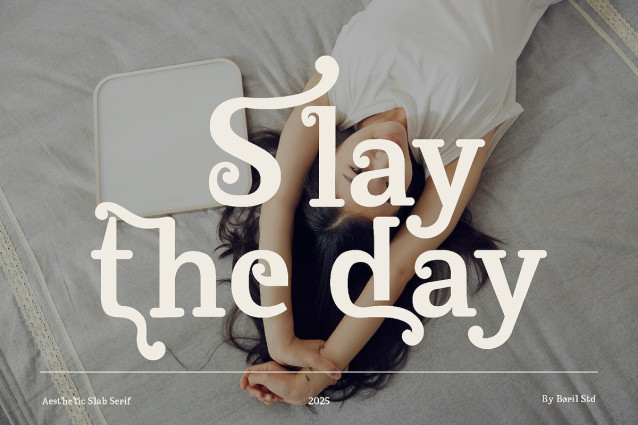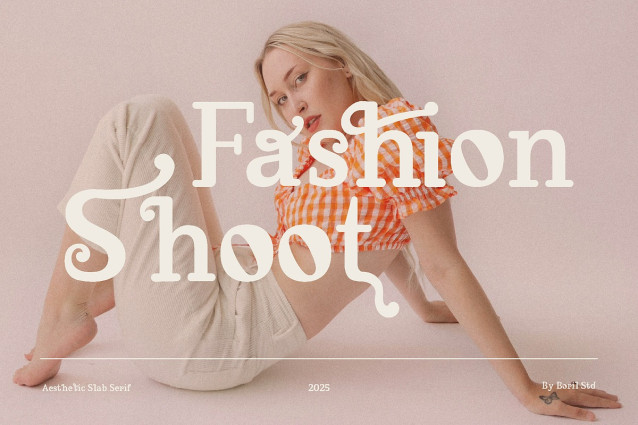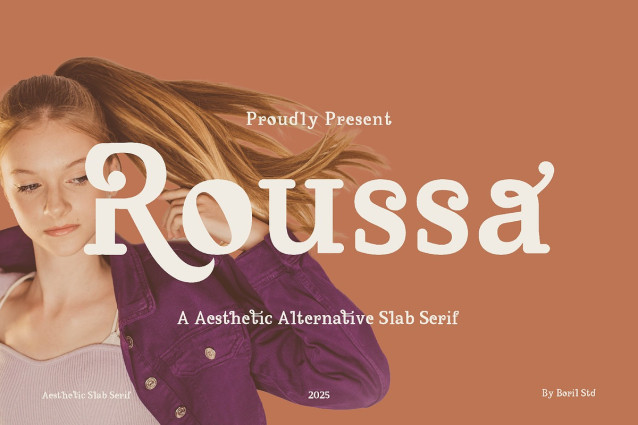
Roussa Font
Roussa Font: Classic style but with unique features like curved shapes and Latin accents, creating an impressive look. It will be the perfect choice for designing posters, advertising posters, logos, t-shirts and magazines, eye-catching typography and more.